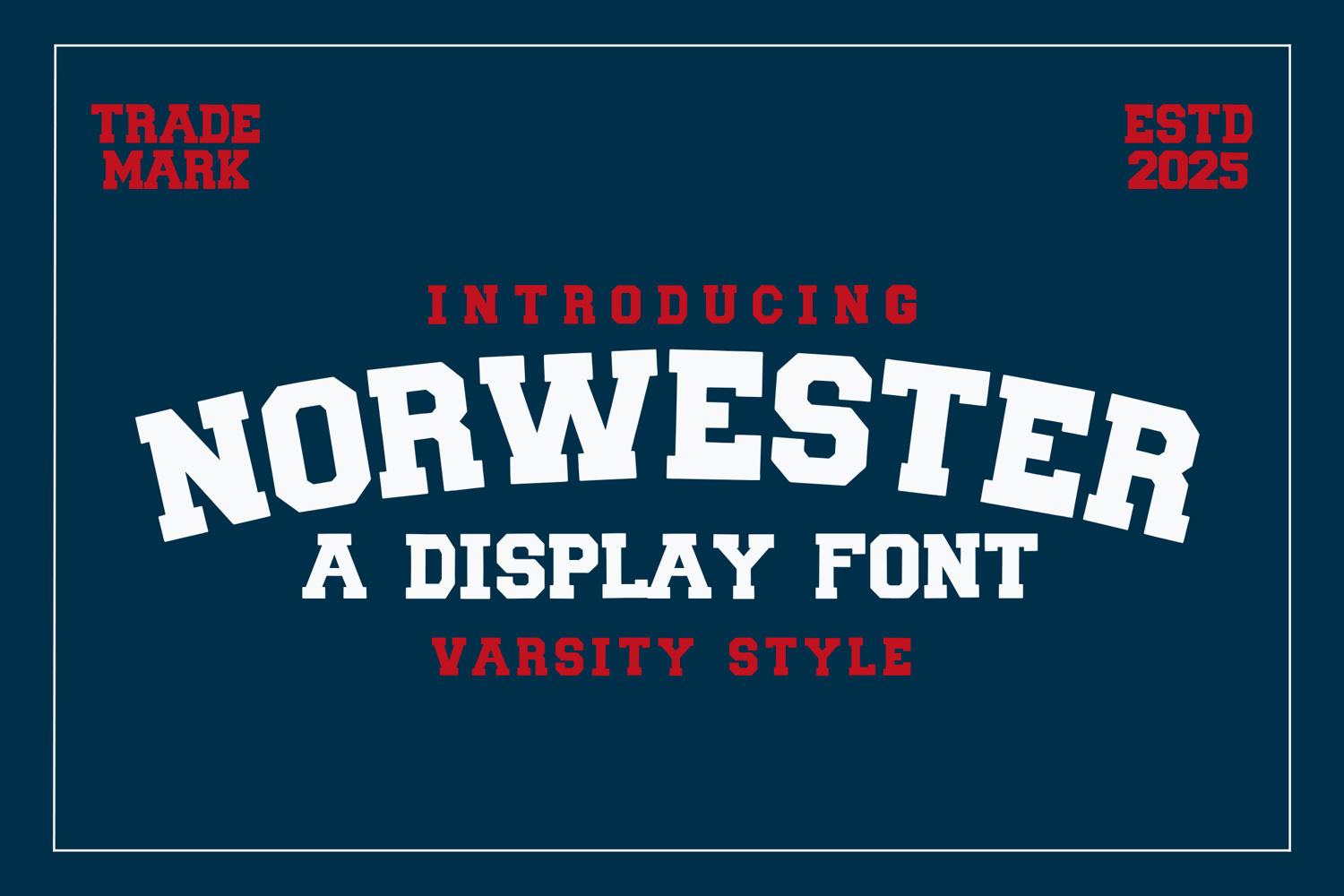
Norwester - Varsity Block Font
Norwester
Norwester is a bold varsity-style display font designed for strength, impact, and readability. With its stacked block lettering and sharp edges, it’s the go-to typeface for sports teams, college apparel, banners, posters, and championship graphics.
Its clean, modern varsity look makes it versatile enough for both retro-inspired designs and modern athletic branding.
• All-Caps Typeface built for varsity / sports designs
• Strong, condensed letterforms for bold impact
• Works great in jersey numbers, team logos, and posters
• Supports numbers, punctuation, and multilingual characters
• Varsity & collegiate branding
• Team sports jerseys & logos
• High school or college events
• Posters, signage, and banners
• Apparel & merchandise designs